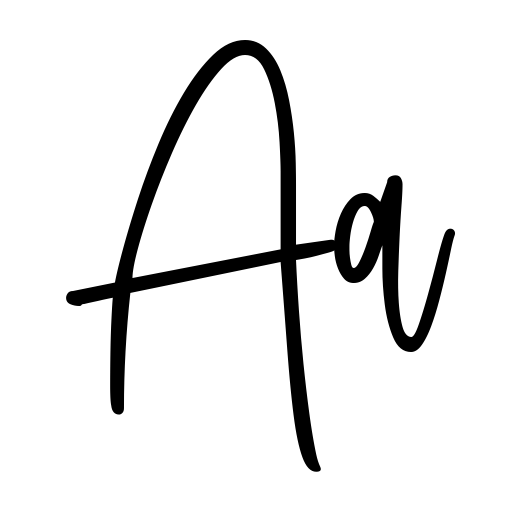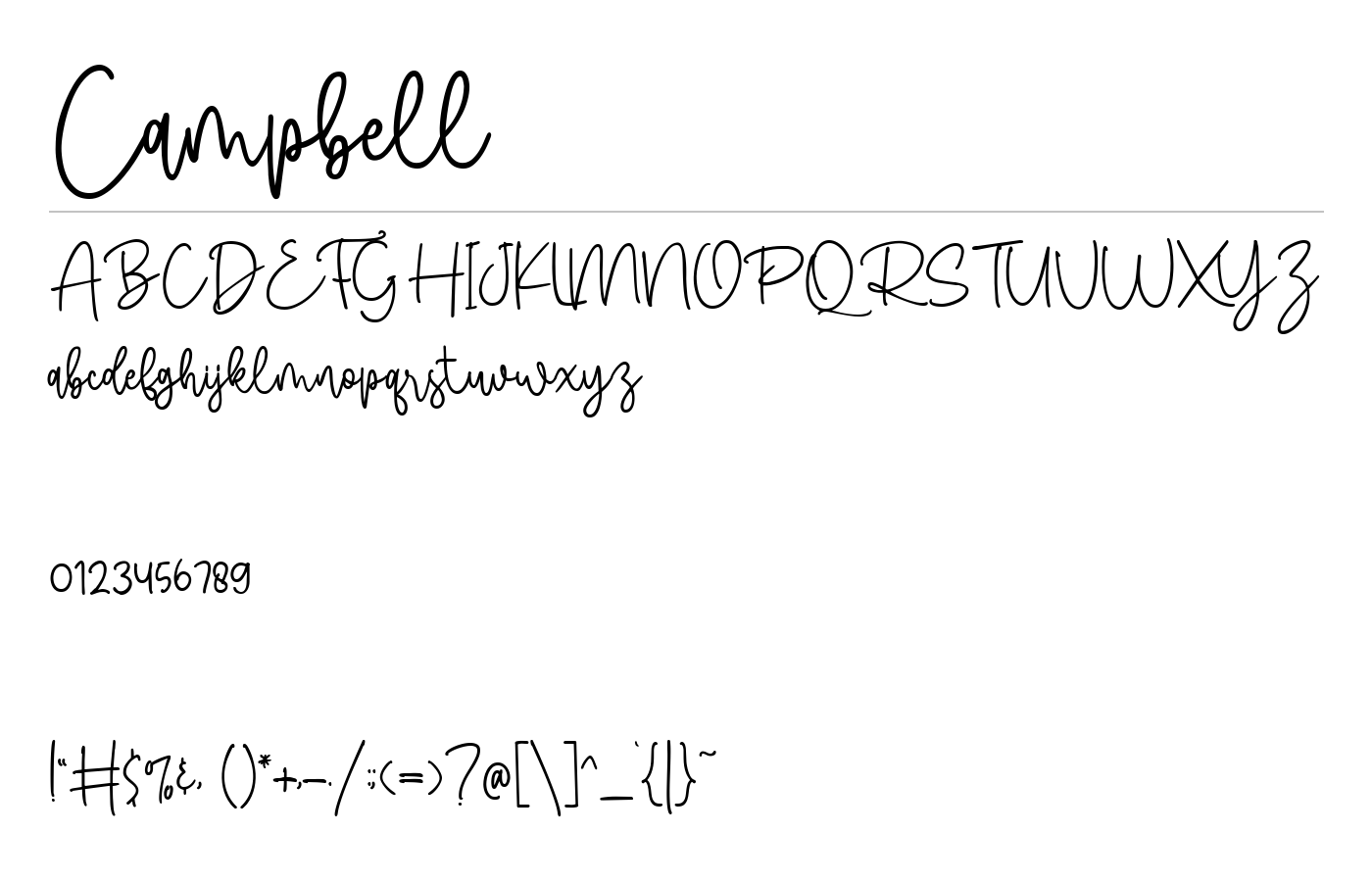
Campbell Font is a delicate and playful handwritten script with slender, flowing letterforms that evoke a casual, friendly feel. Its smooth, consistent strokes and slightly irregular shapes give it a charming, personal touch, making it ideal for creative projects, invitations, branding, and any design seeking warmth and approachability. This font works beautifully where a natural, handwritten look is desired, adding elegance without formality.
Campbell Font
About Campbell Font
| Font family | Campbell Font |